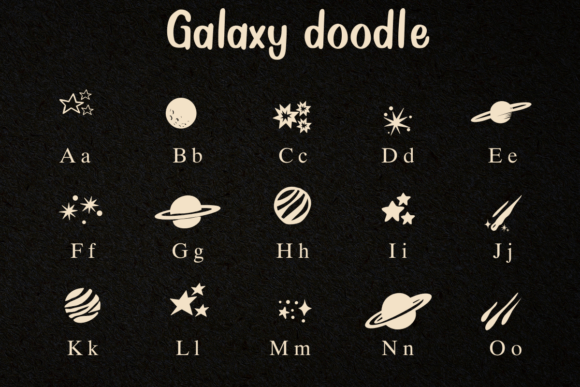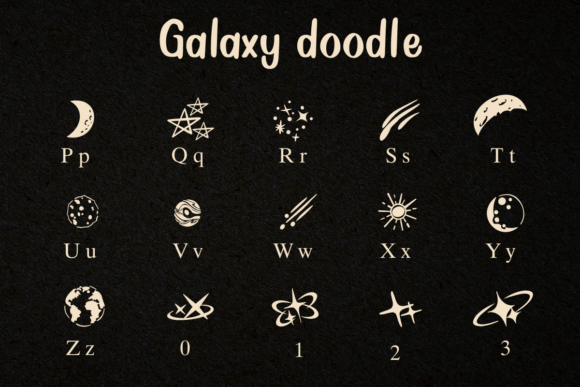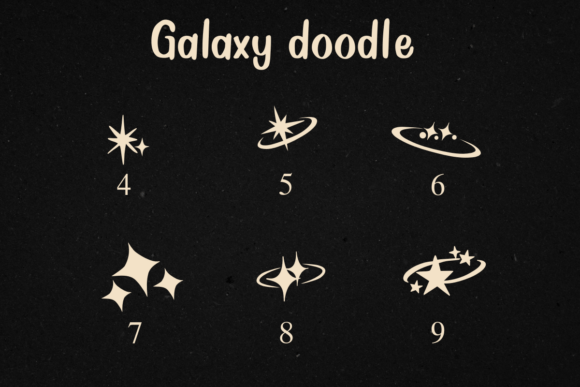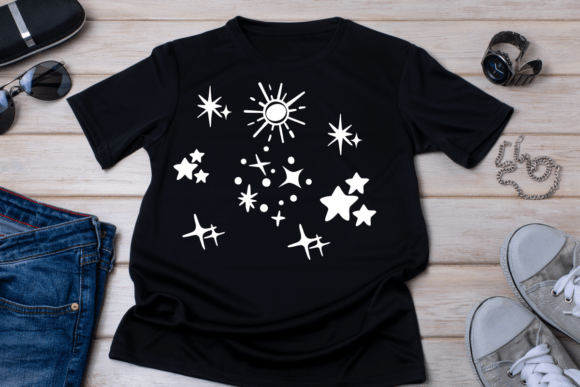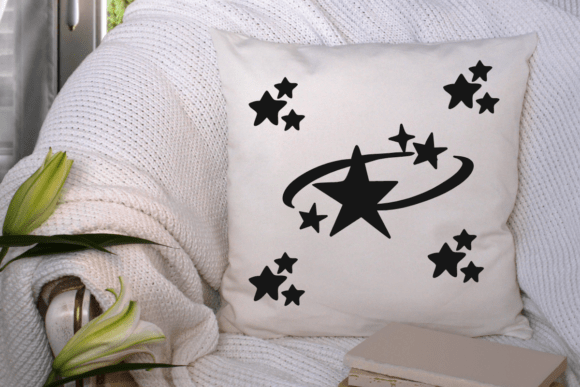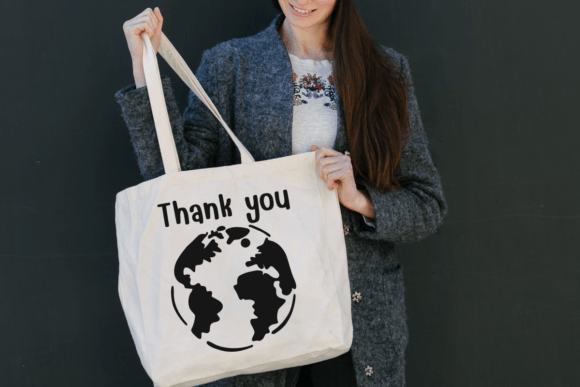
Introducing Galaxy Doodle Font: Explore the Cosmos in Your Designs
Are you a designer, crafty enthusiast, or simply a space lover looking for a unique and captivating font to elevate your projects? Look no further than the Galaxy Doodle Font, a stellar dingbats font that brings the wonders of the universe to your designs. This fantastic font features a diverse collection of celestial icons, including planets, stars, moons, and cosmic elements, perfect for space-themed designs, sci-fi projects, astrology graphics, and futuristic branding.
What is Galaxy Doodle Font?
Galaxy Doodle Font is a specially crafted dingbats font that offers a wide range of celestial symbols, illustrations, and icons. This font is designed to add a touch of cosmic magic to your designs, making it ideal for various creative projects. With Galaxy Doodle, you can effortlessly create stunning visuals that transport your audience to a world beyond our own.
Key Features of Galaxy Doodle Font
- Variety of Celestial Icons: The font includes a vast array of celestial icons, such as planets, stars, moons, asteroids, and other cosmic elements.
- Space-Themed Designs: Perfect for creating space-themed designs, including posters, flyers, brochures, and social media graphics.
- Sci-Fi Projects: Ideal for sci-fi projects, such as movie posters, book covers, and video game designs.
- Astrology Graphics: Great for creating astrology graphics, including birth charts, zodiac signs, and horoscope illustrations.
- Futuristic Branding: Suitable for futuristic branding, including logos, business cards, and packaging designs.
Uses of Galaxy Doodle Font
The Galaxy Doodle Font is versatile and can be used in a variety of creative projects, including:
- Graphic Design: Use the font to create stunning graphic designs, such as posters, flyers, and brochures.
- Digital Art: Incorporate the font into your digital art, including illustrations, paintings, and mixed media.
- Crafting: Perfect for crafty enthusiasts, the font can be used for scrapbooking, card making, and other paper crafts.
- Web Design: Use the font to create visually appealing web designs, including website headers, buttons, and icons.
Benefits of Using Galaxy Doodle Font
By using the Galaxy Doodle Font, you can:
- Add a Touch of Whimsy: Bring a touch of cosmic magic to your designs, making them more engaging and captivating.
- Save Time: With a vast array of celestial icons at your fingertips, you can save time and effort in creating your designs.
- Stand Out: Use the font to create unique and eye-catching designs that stand out from the crowd.
Tips and Tricks for Using Galaxy Doodle Font
To get the most out of the Galaxy Doodle Font, here are some tips and tricks:
- Experiment with Different Sizes: Try using the font in different sizes to create visual interest and hierarchy.
- Combine with Other Fonts: Combine the Galaxy Doodle Font with other fonts to create a unique and visually appealing typography.
- Use in Color: Use the font in color to add an extra pop of vibrancy to your designs.